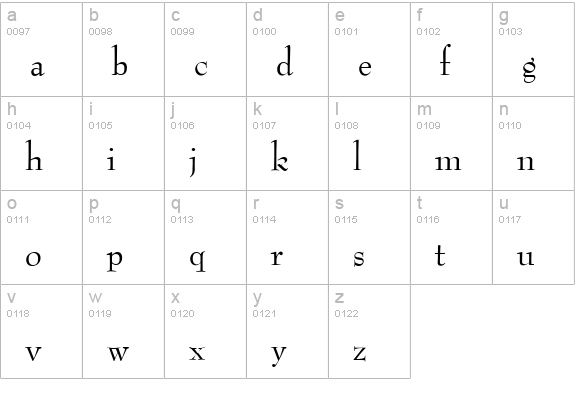
CgBernhardModernRoman Font Details
CgBernhardModernRoman is a classic and elegant serif font that exudes sophistication and timelessness. With its clean lines and balanced proportions, this font is perfect for adding a touch of refinement to any design project. Whether you're working on a print publication, branding materials, or digital content, CgBernhardModernRoman brings a sense of sophistication and professionalism. What makes CgBernhardModernRoman even more appealing is that it is available for free download at FontsMarket.com. This means that you can easily access and use this beautiful font in your projects without any cost. Embrace the beauty and elegance of CgBernhardModernRoman in your designs today and elevate your creations to new heights.